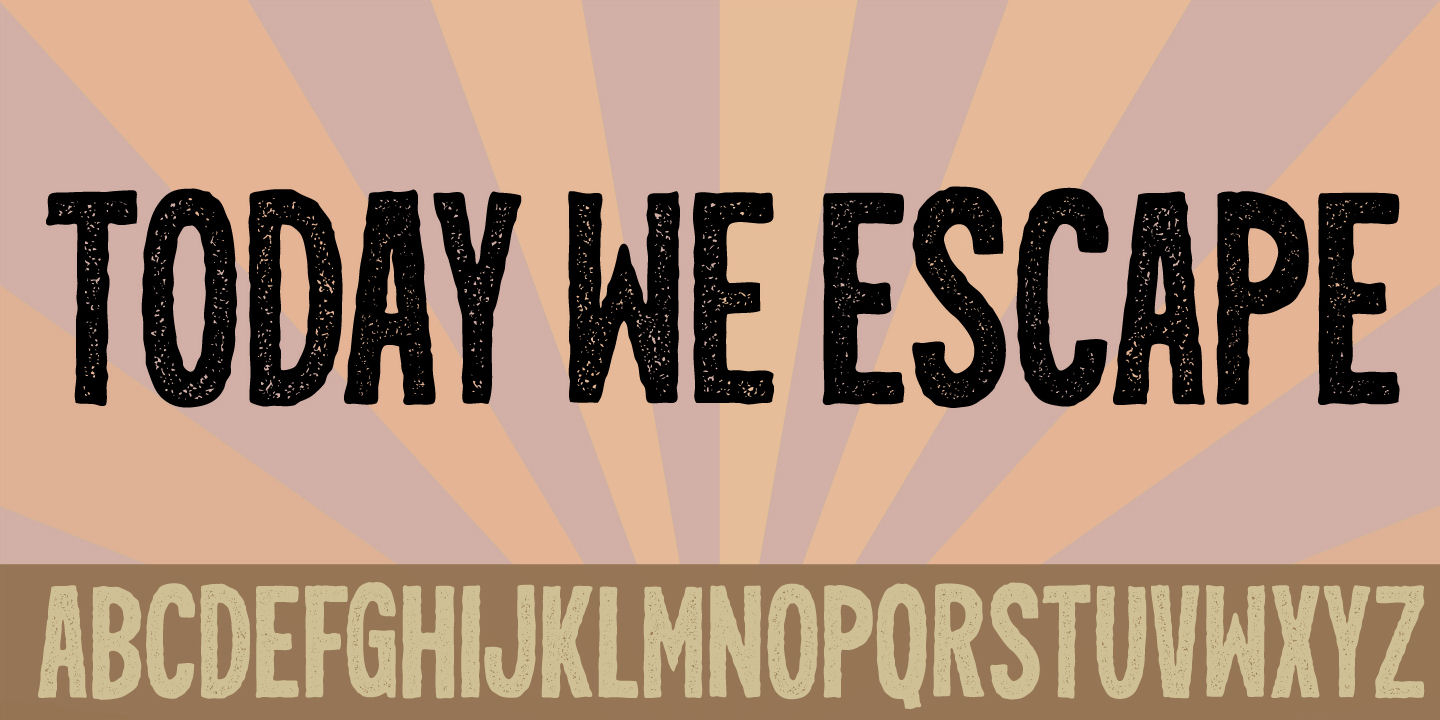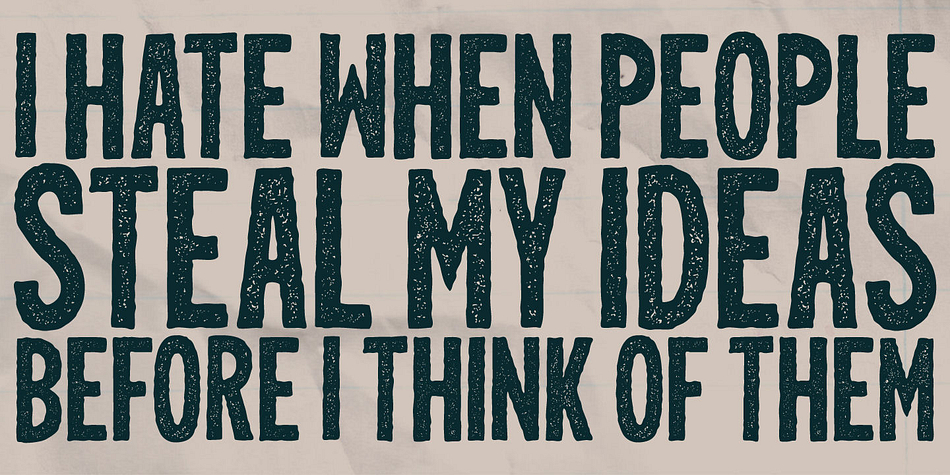
Today We Escape is a grunge, display sans and hand display font published by Pizzadude.dk.
Today we escape has got rugged edges and a slightly worn surface without overdoing it. The lettes are ALL CAPS, but has got different lower- and uppercase.
Today we escape comes with substitution characters for double letters!